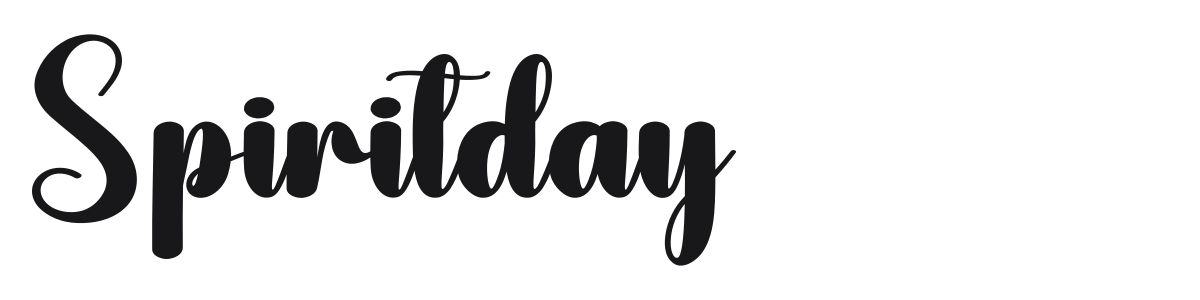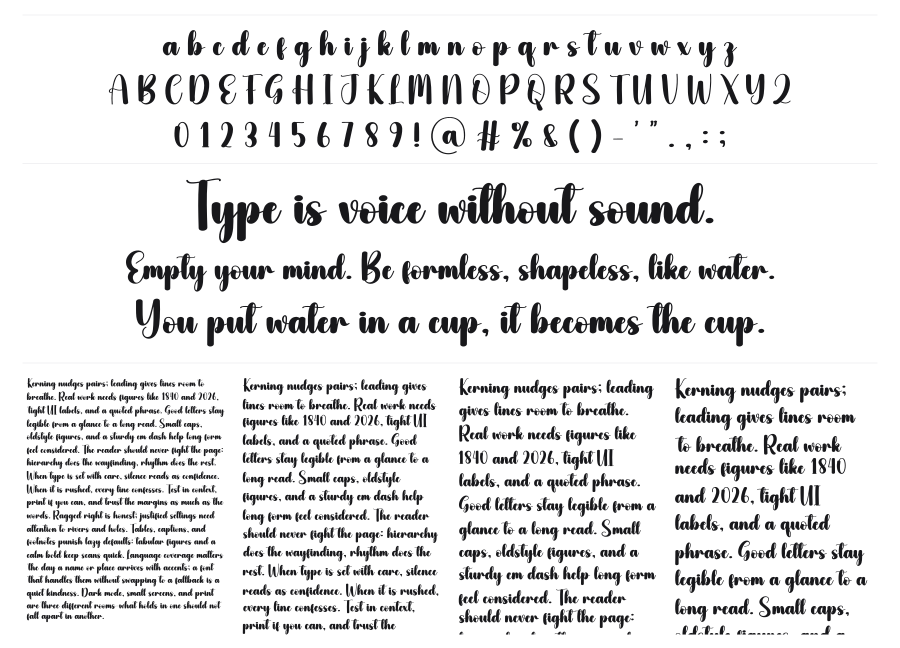
Spiritday
Spiritday is a bold contemporary brush script with high stroke contrast and lively, connected characters. The bouncy baseline rhythm and generous looping strokes give it the warmth of hand lettering without sacrificing legibility at display sizes. It fits naturally in wedding stationery, product packaging, and social media graphics.